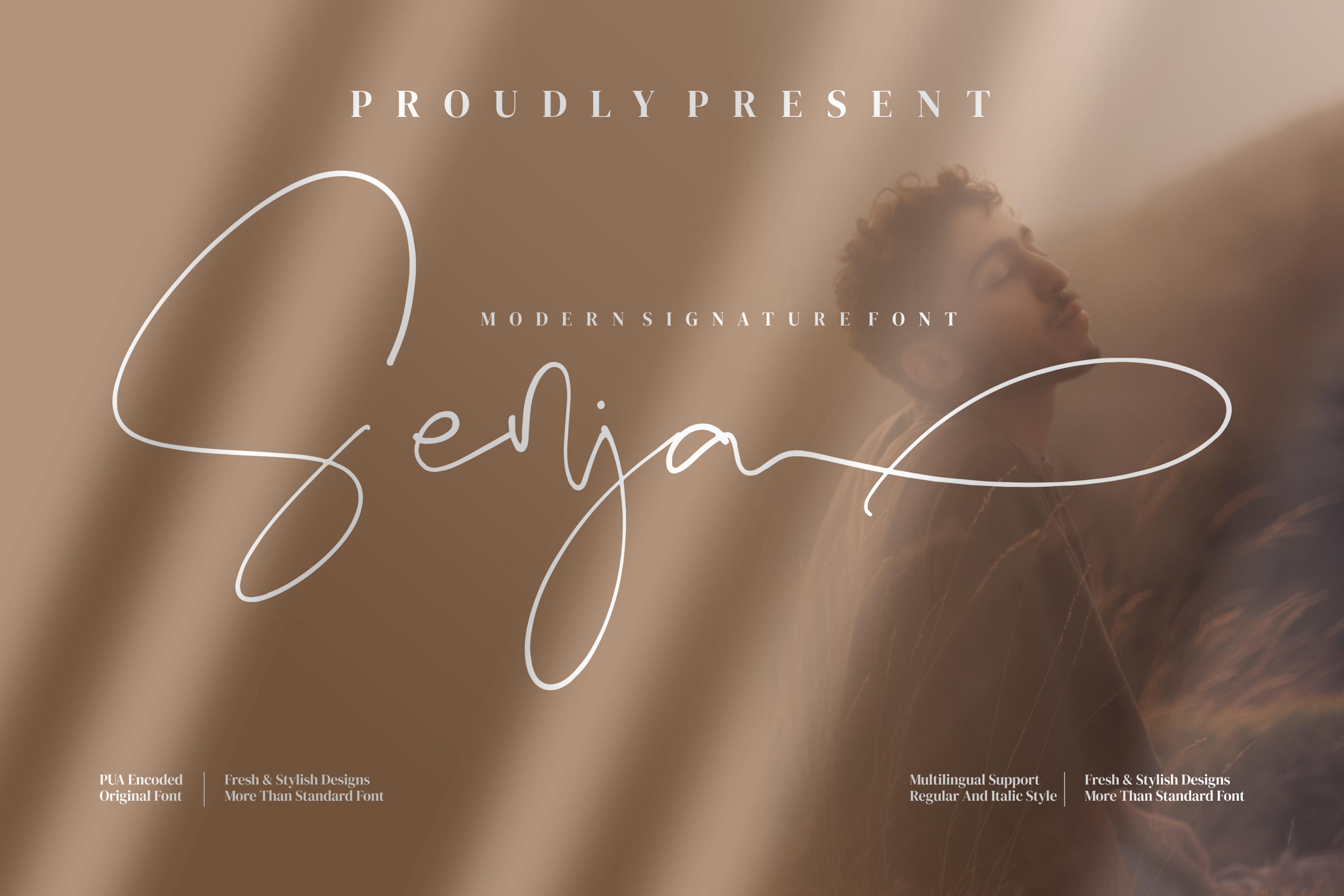
Senja Font Description
Senja is a chic, refined script font that emanates sophistication and elegance. Its stylish alternates and ligatures make this font the perfect match for any project. Senja is PUA encoded which means you can access all of the glyphs and swashes with ease!